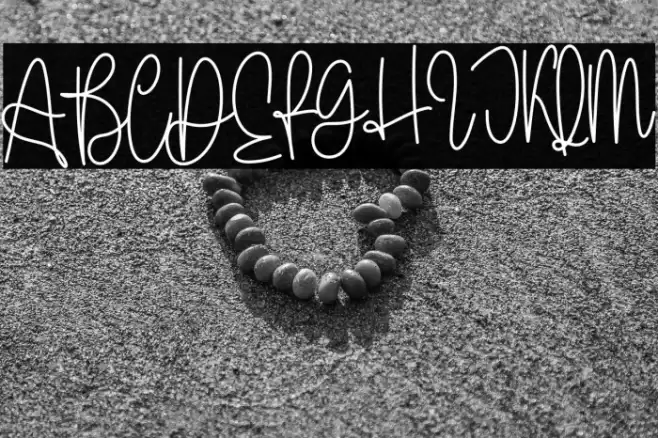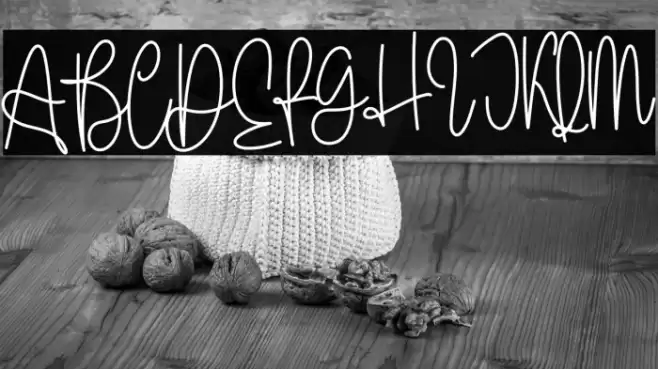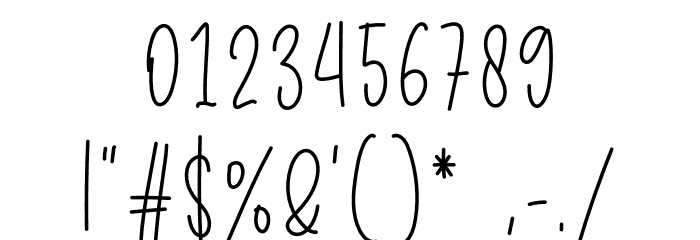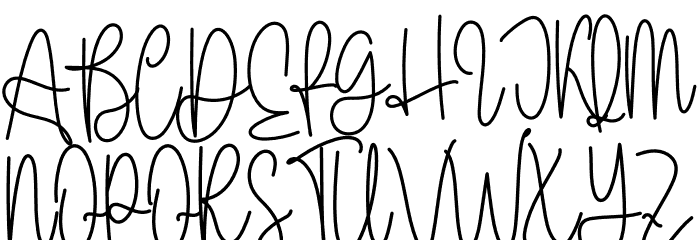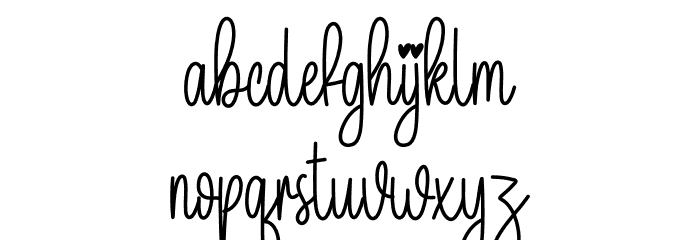
Wedding Is Comming Font
Wedding Is Comming Description
This font features a whimsical and playful handwritten style, characterized by its looping and flowing letterforms. The uppercase letters are tall and slender with unique, artistic flourishes that give it a distinctive personality. The lowercase letters maintain a consistent flow, with rounded edges and a casual, friendly appearance. Numbers and special characters are designed to match the overall aesthetic, providing a cohesive look across all elements. This font exudes a sense of creativity and charm, making it ideal for projects that require a personal touch.
A whimsical handwritten font with playful loops and flowing letterforms from Uncategorized fonts.
- Font: Wedding Is Comming
- Proposed Projects: Ideal for wedding invitations, greeting cards, personal branding, and creative projects that require a personal and artistic touch.
- Use Case: Headlines, Invitations, Personal projects